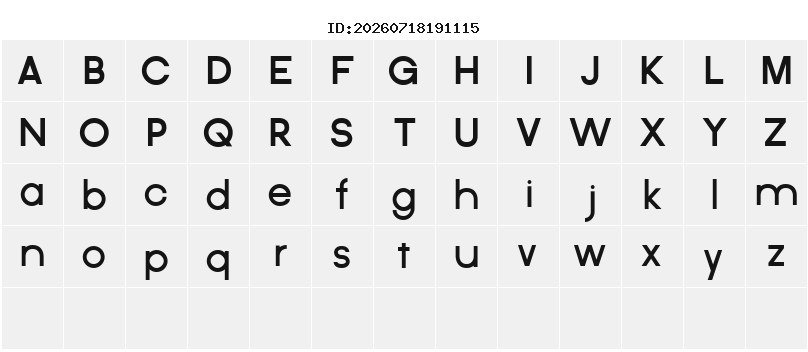
Criticized.ttf is a modern, elegant sans-serif font designed for ultimate readability and visual harmony. Perfect for branding, headlines, web design, and print materials.